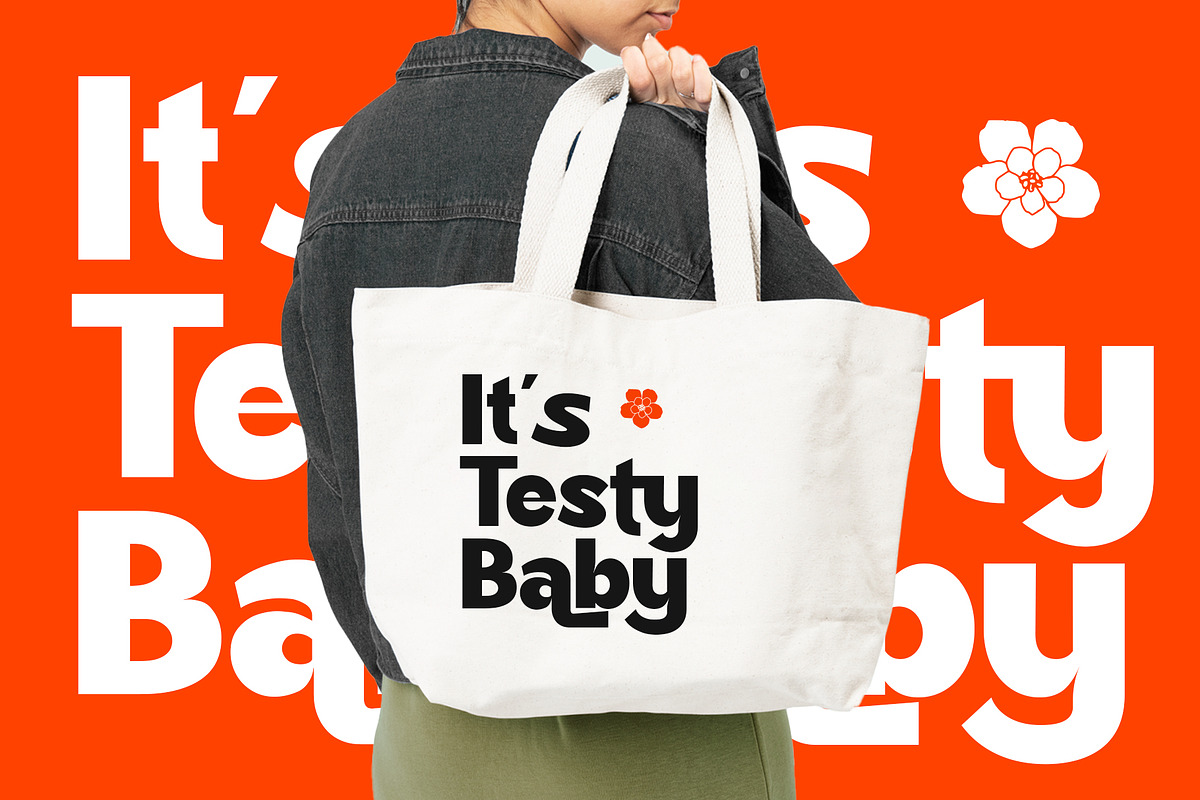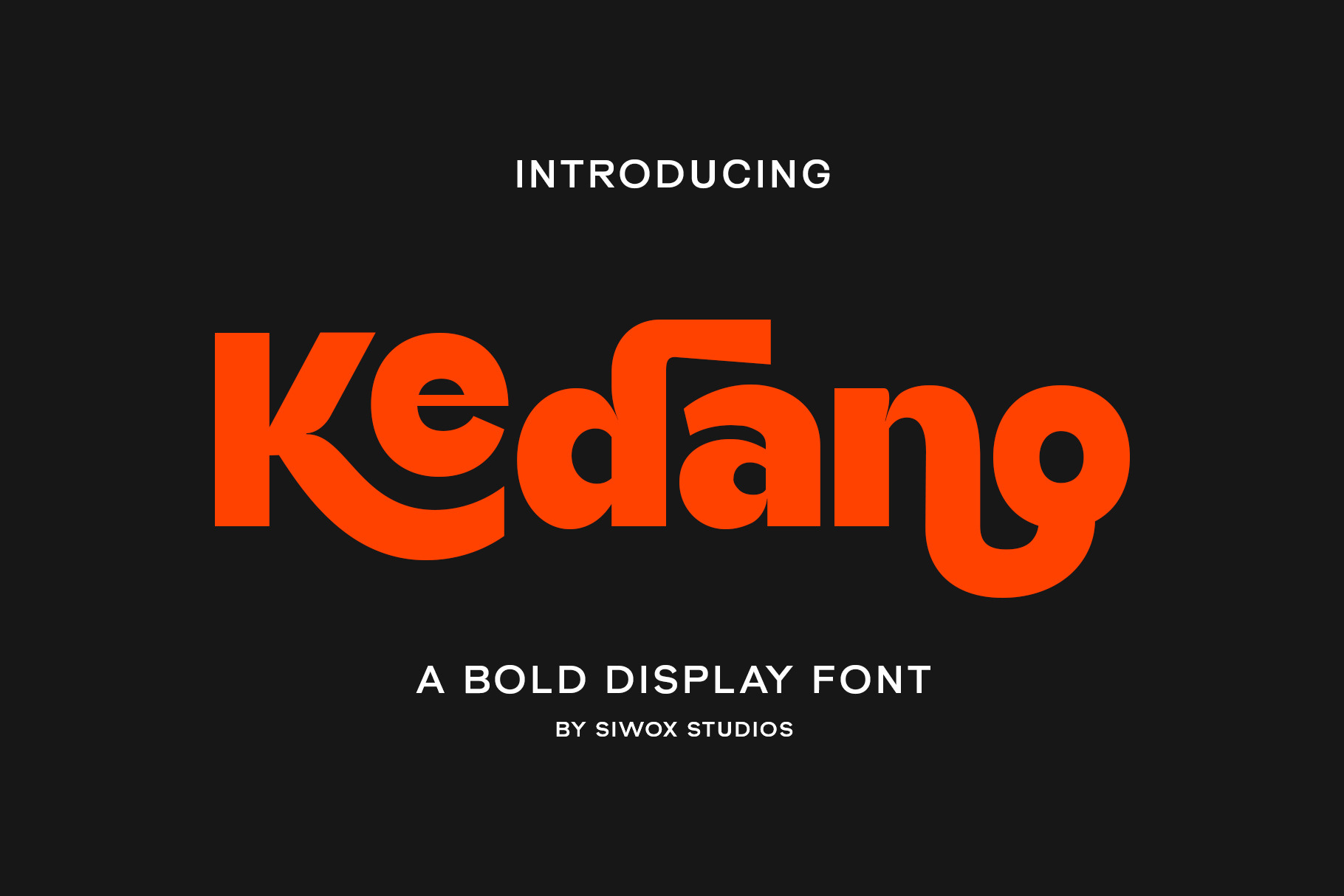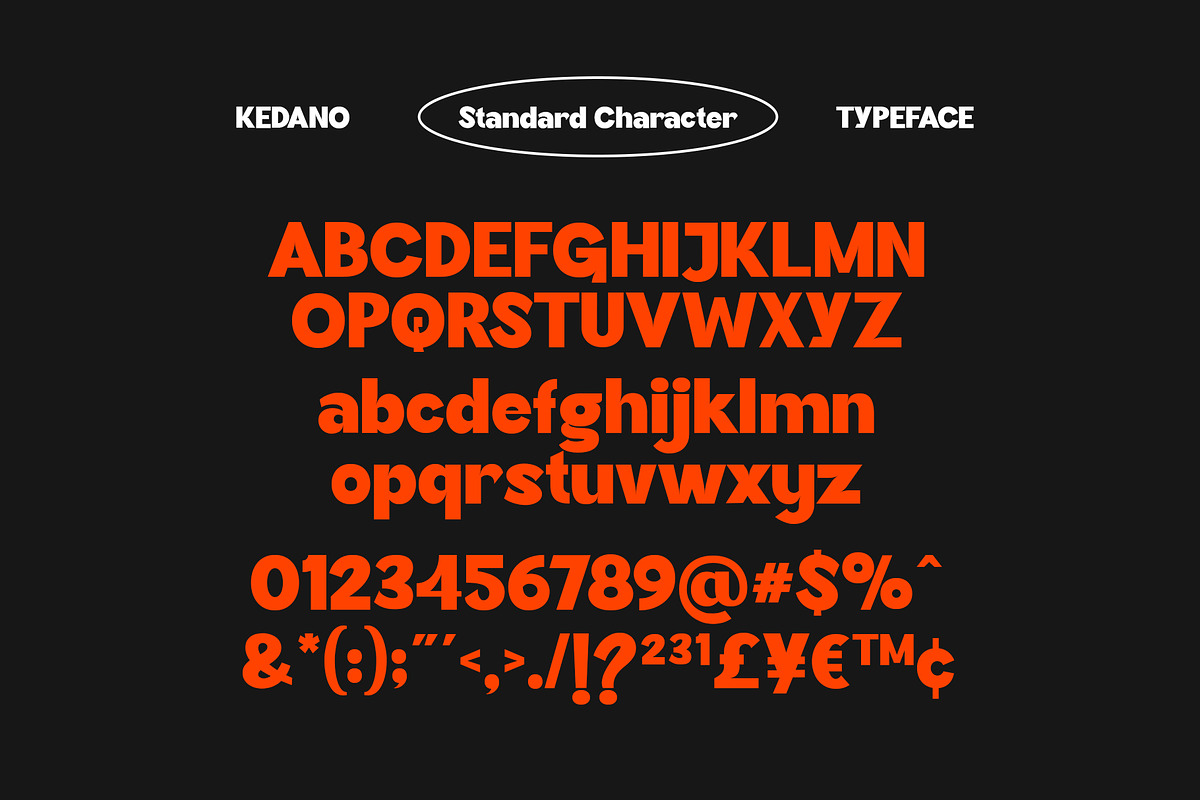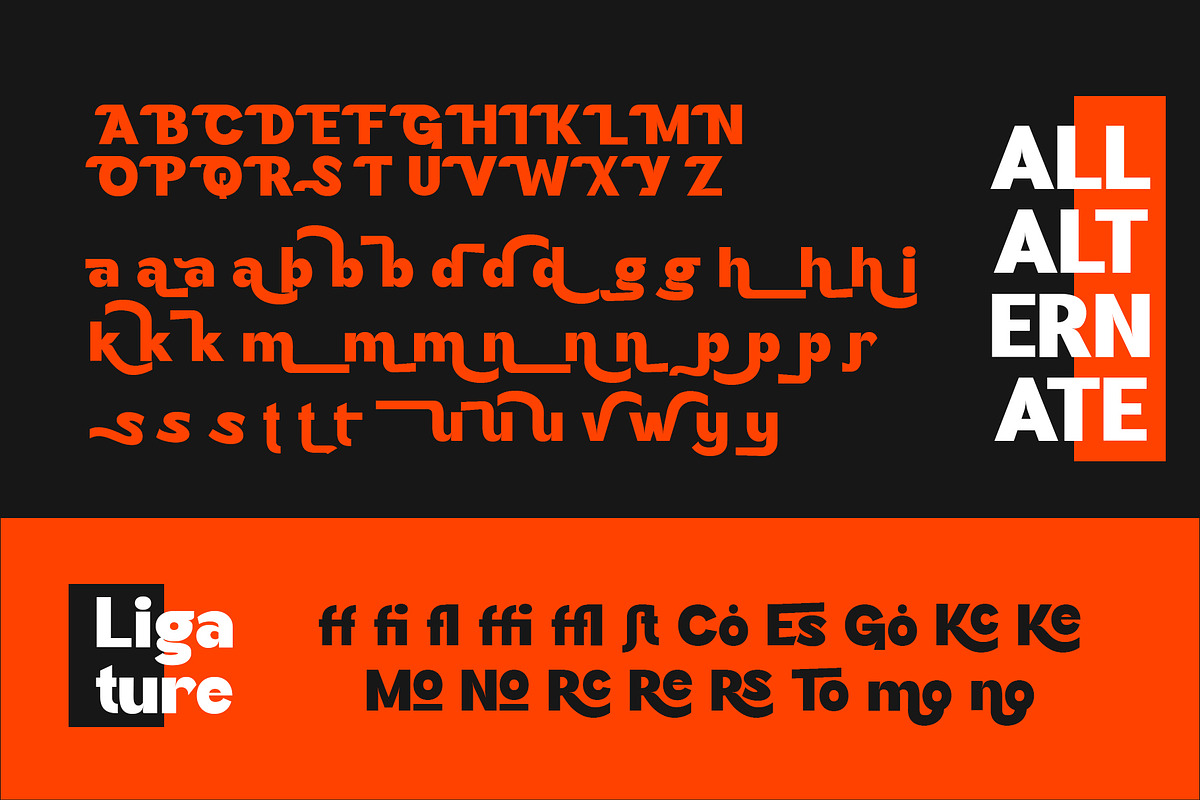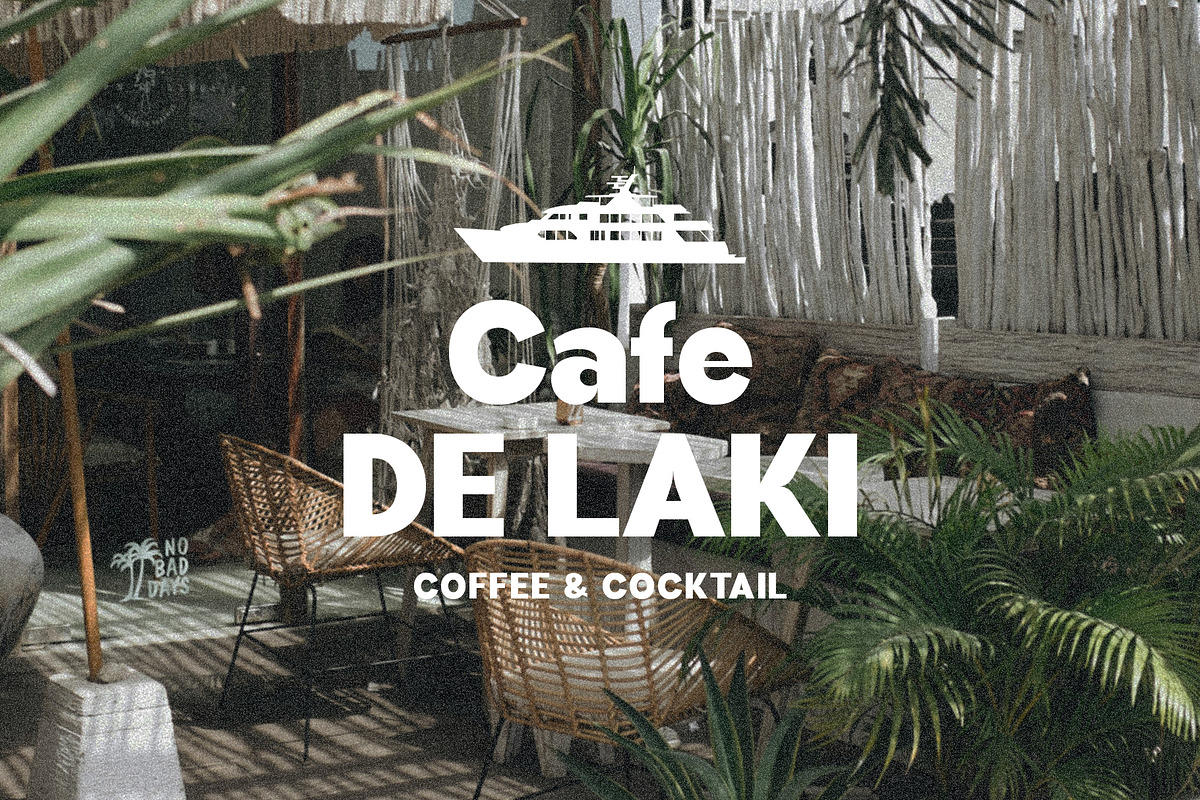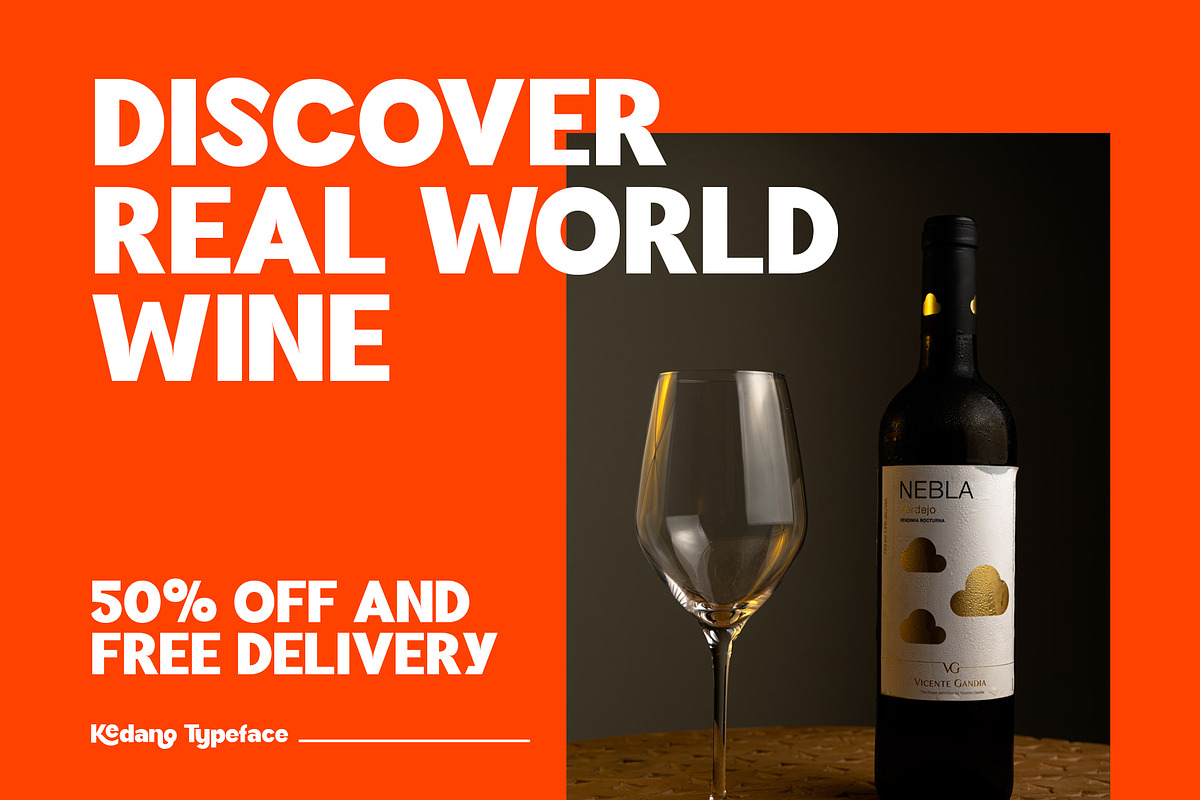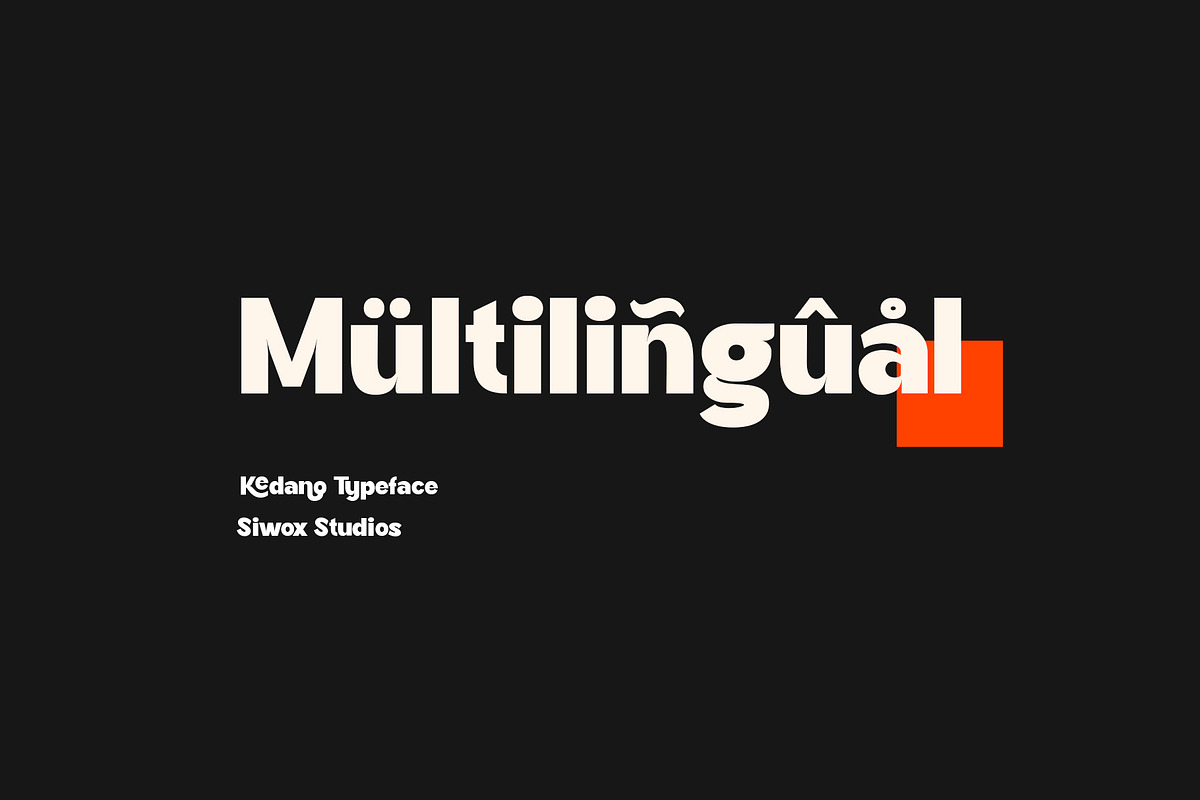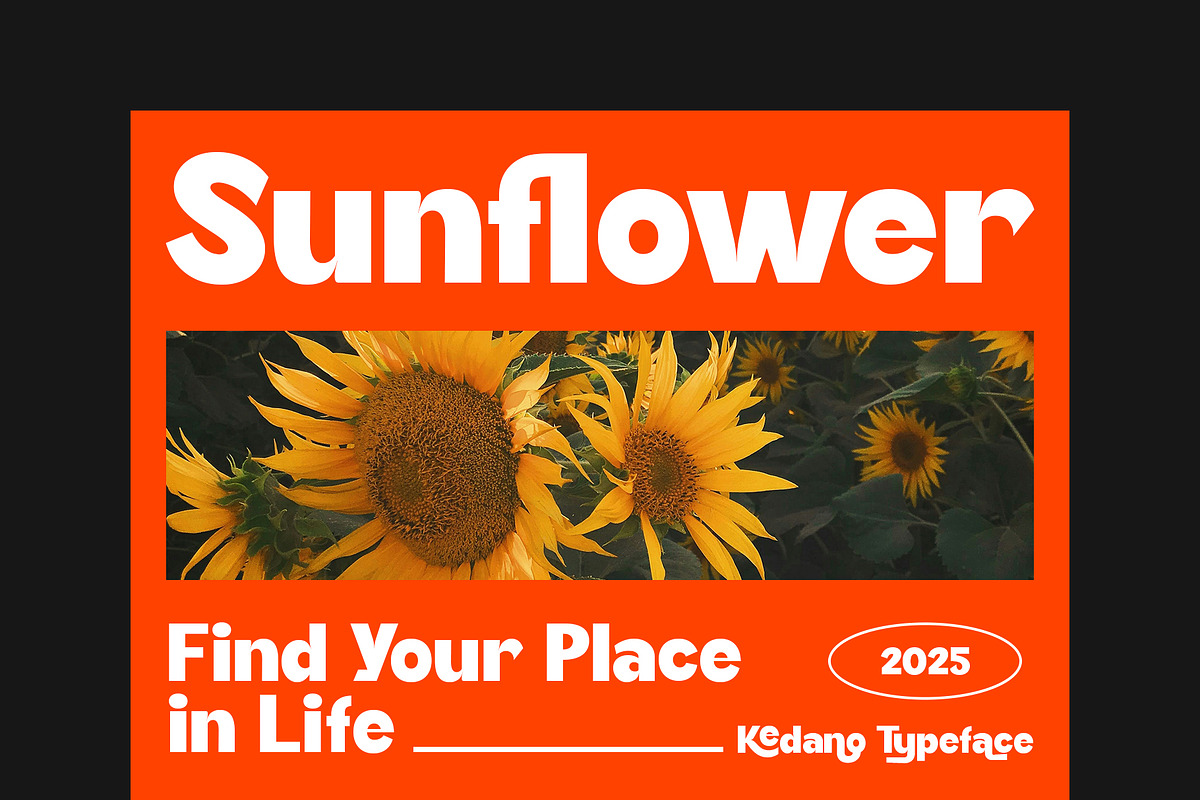
Kedano - Bold Display Font
Introducing Kedano Font is a bold and elegant display font equipped with Alternate and Ligature that is suitable for branding, posters, logos, and advertisements. This font ensures that the message conveyed through the text remains easy to read and understand.